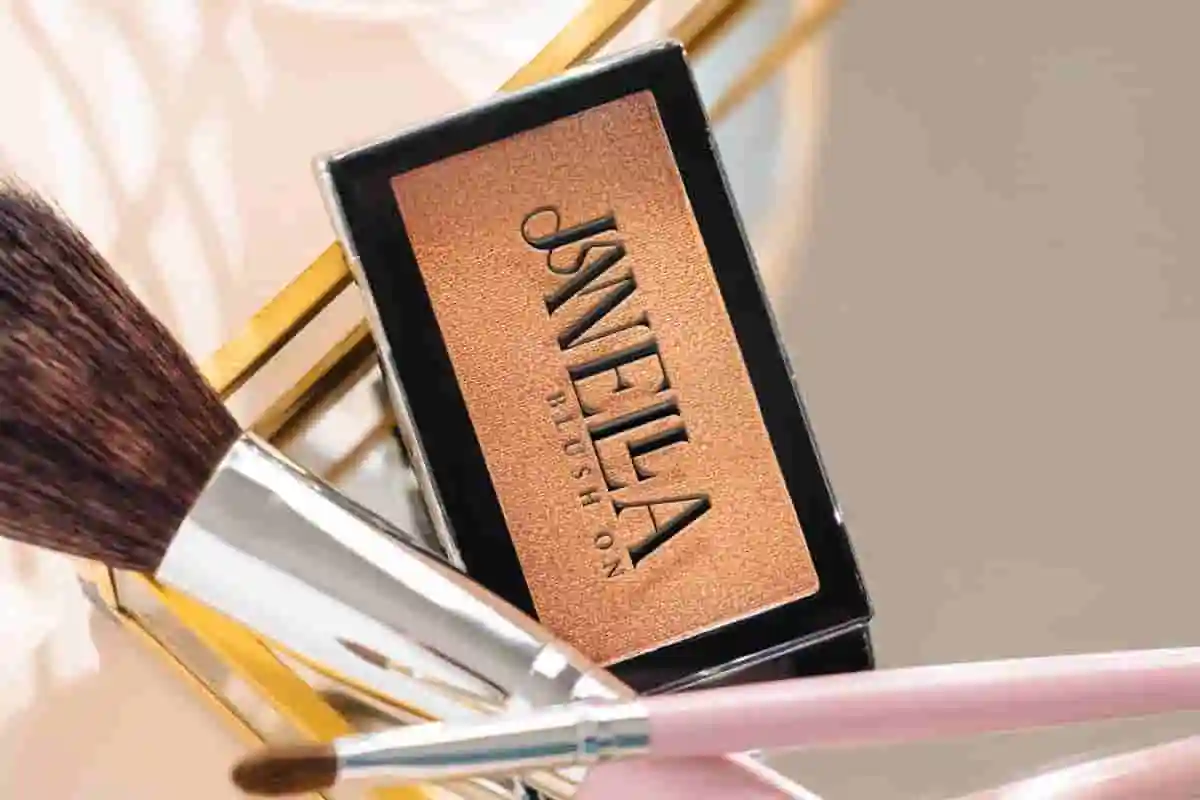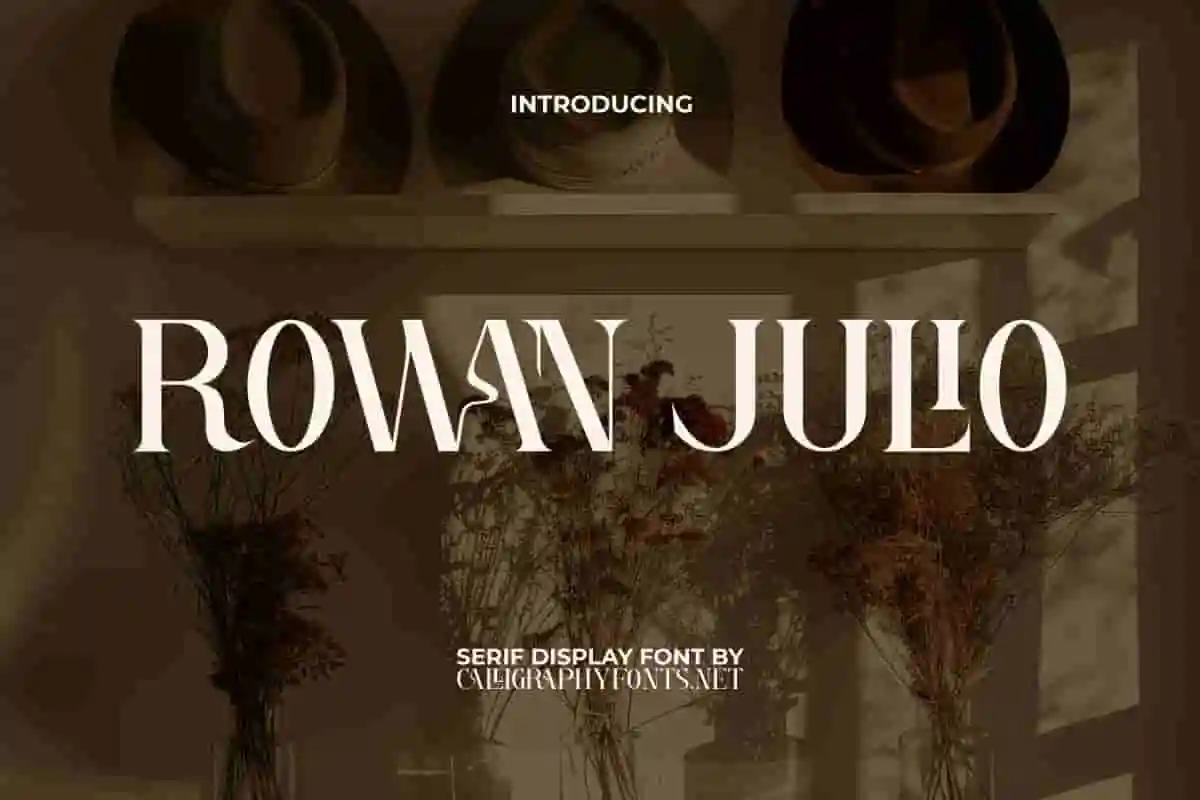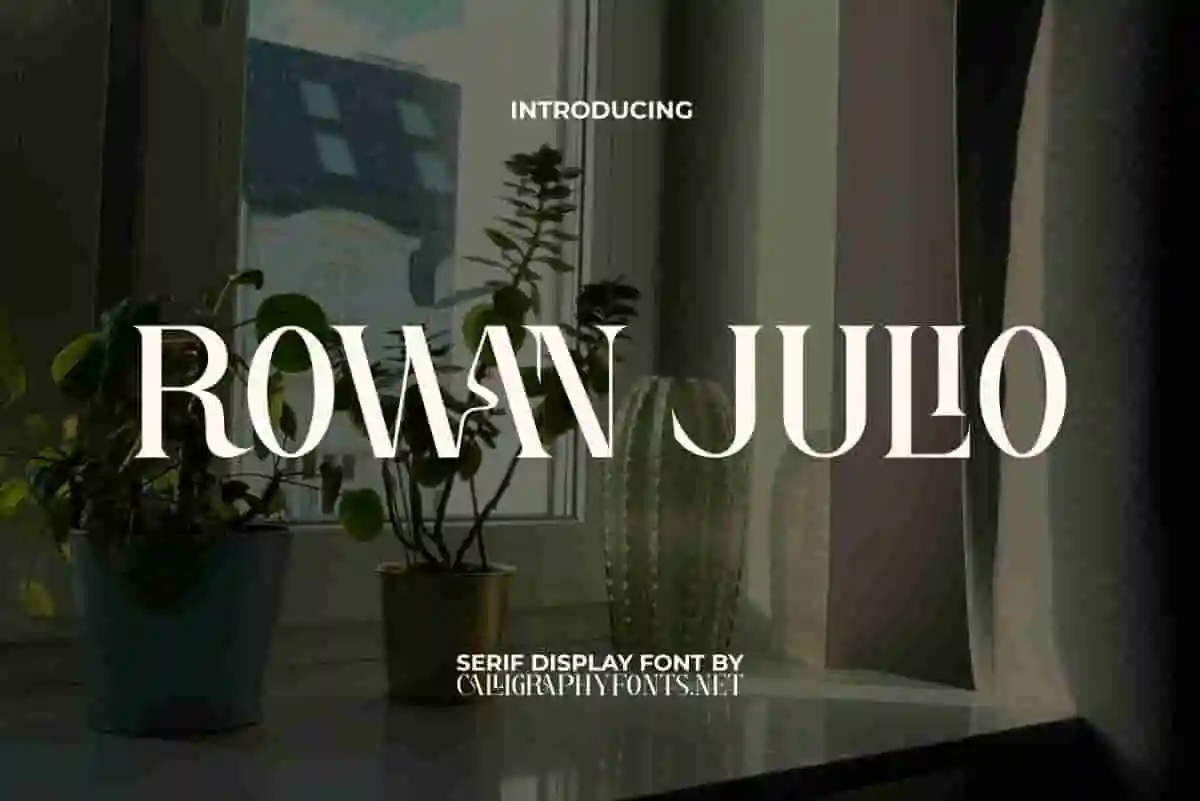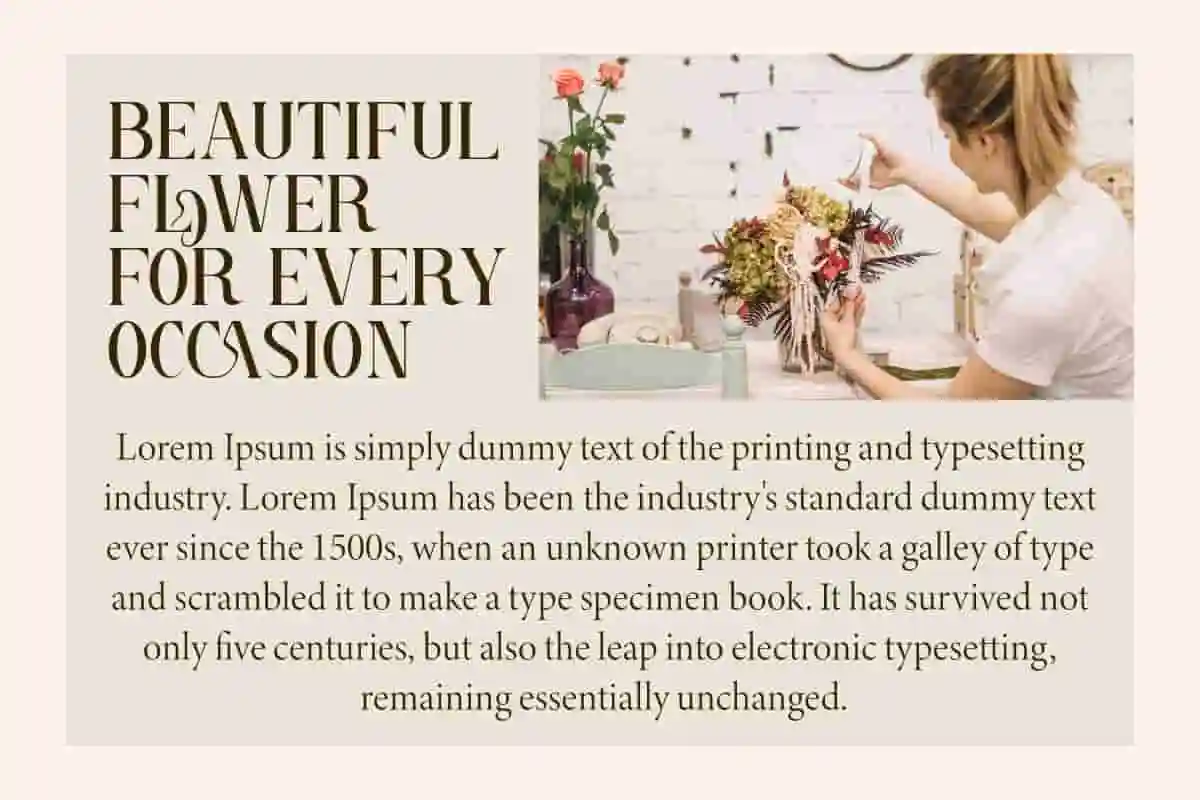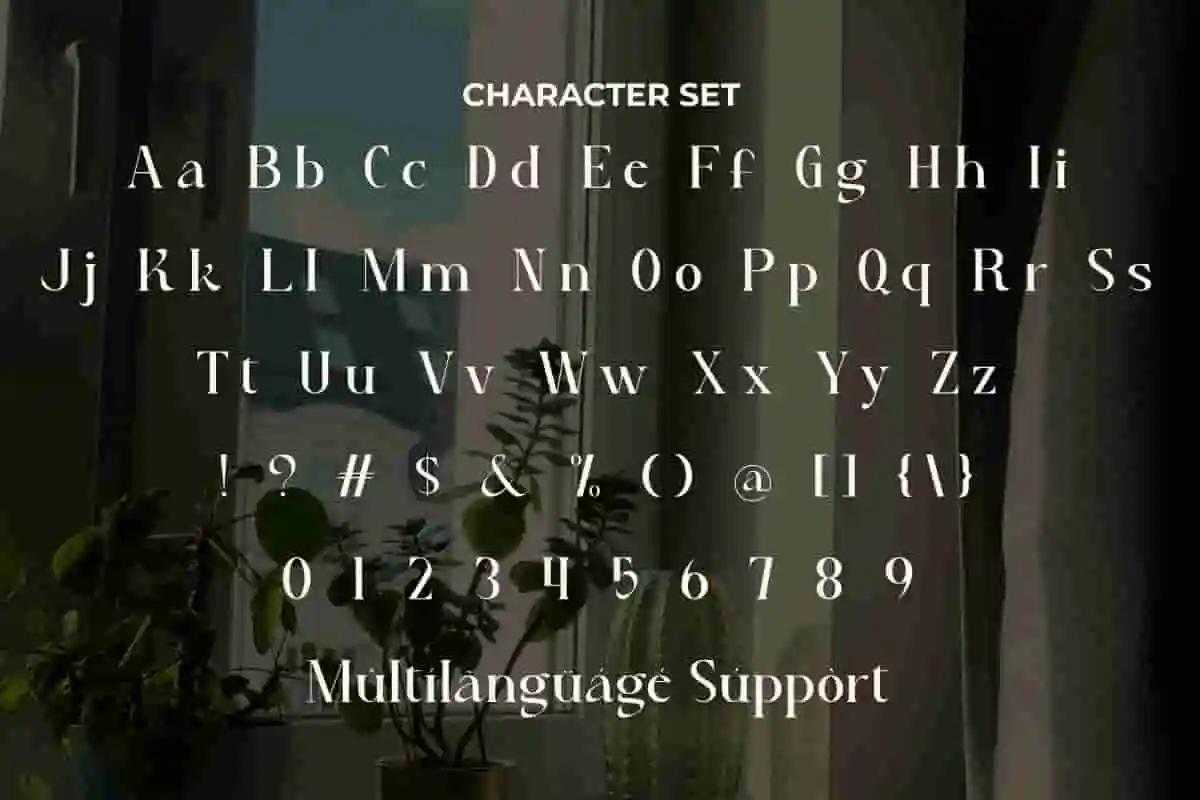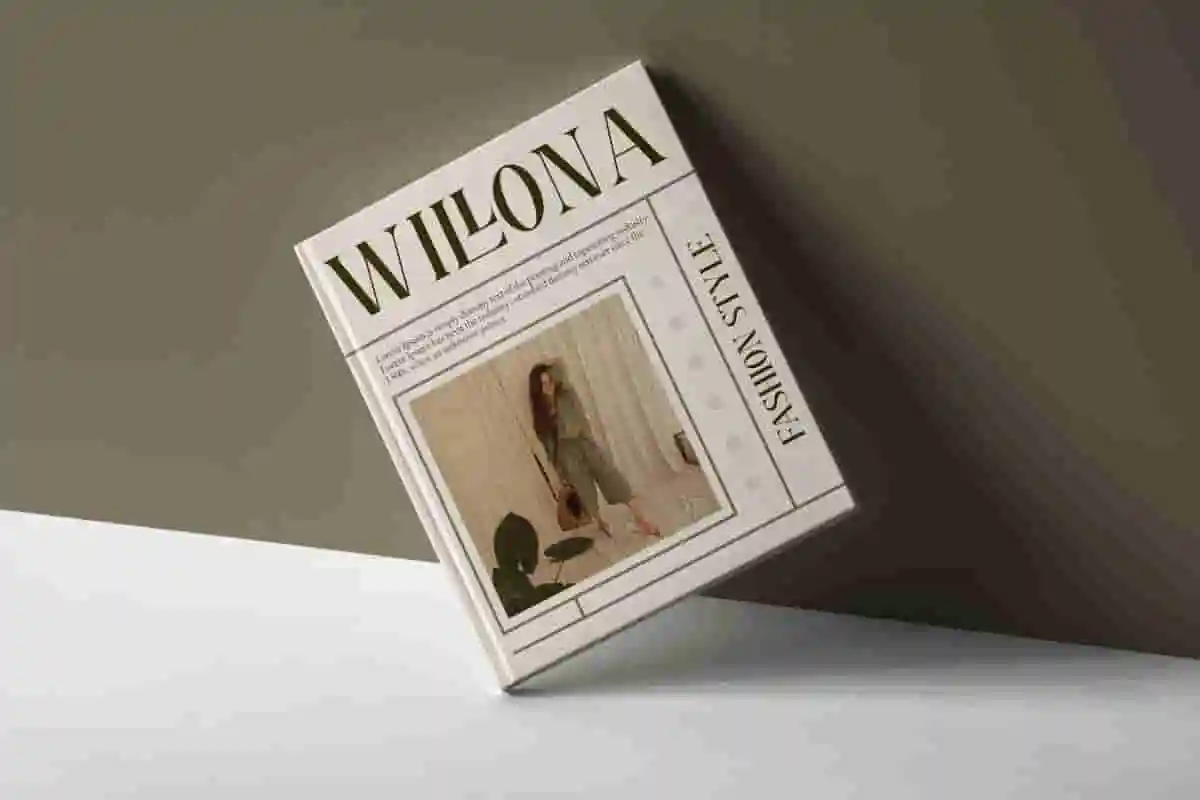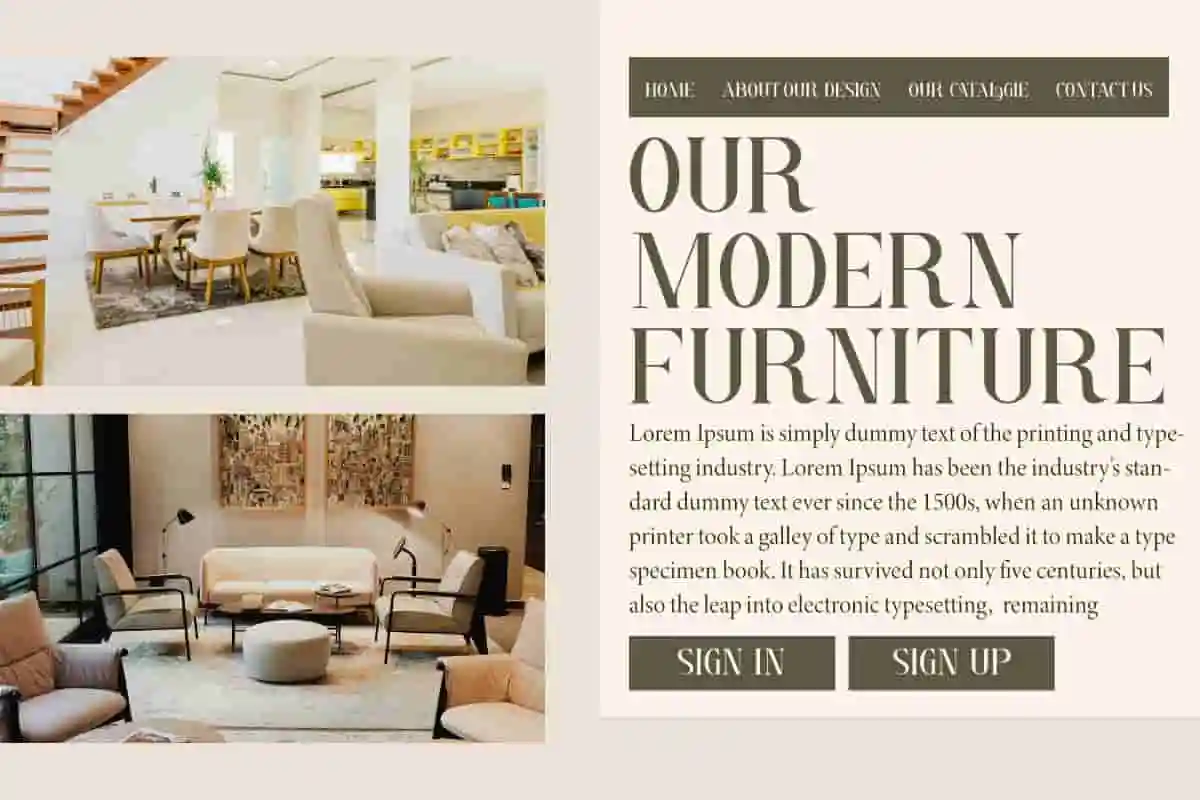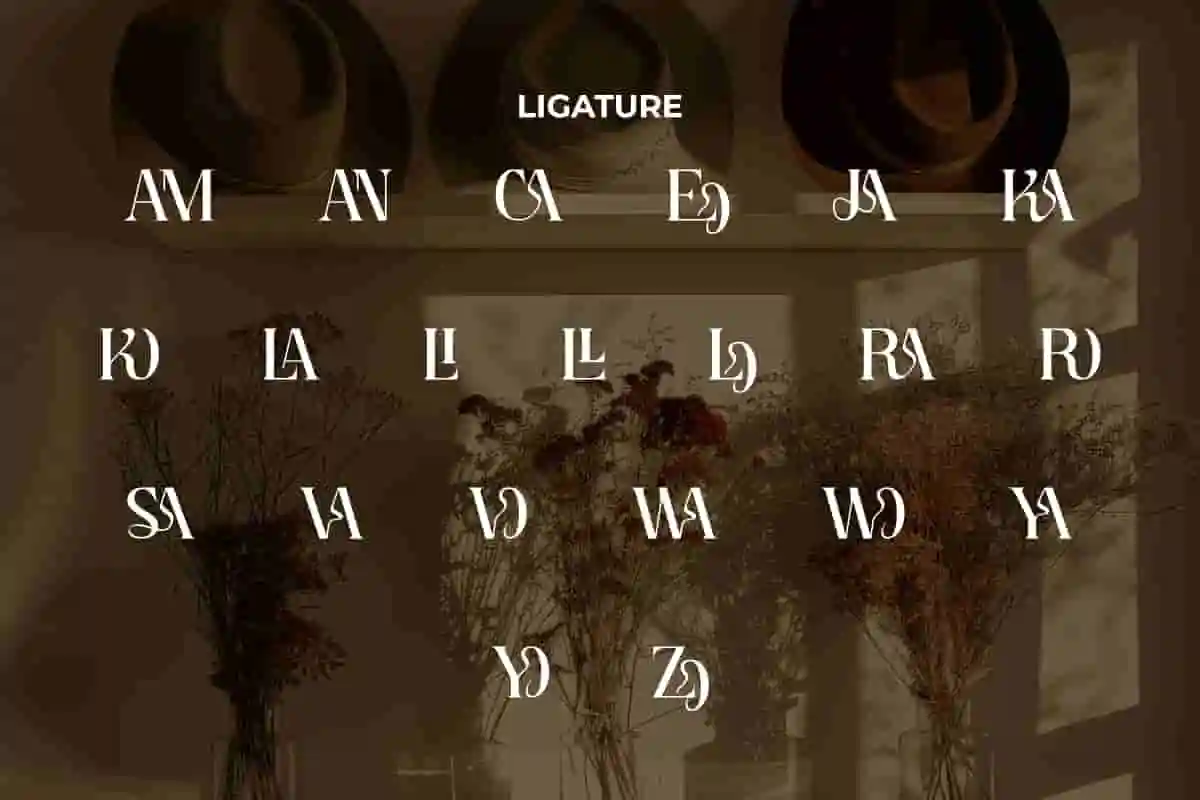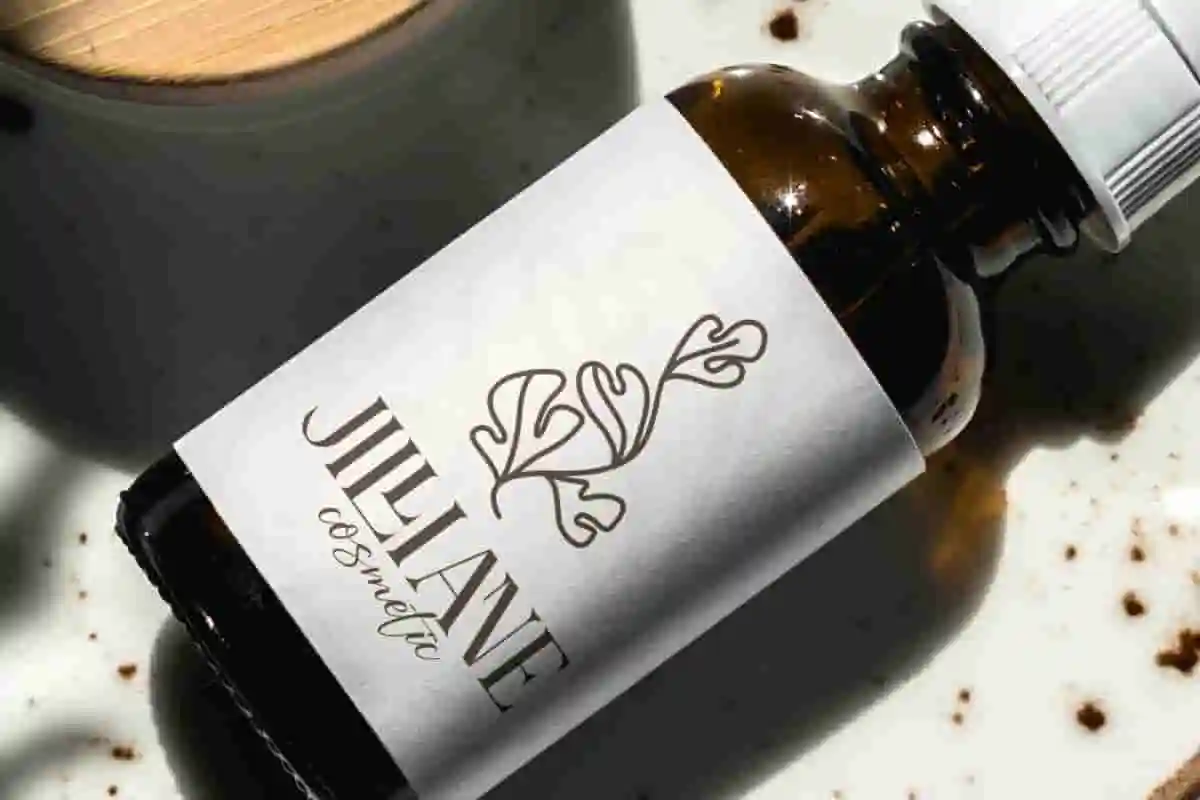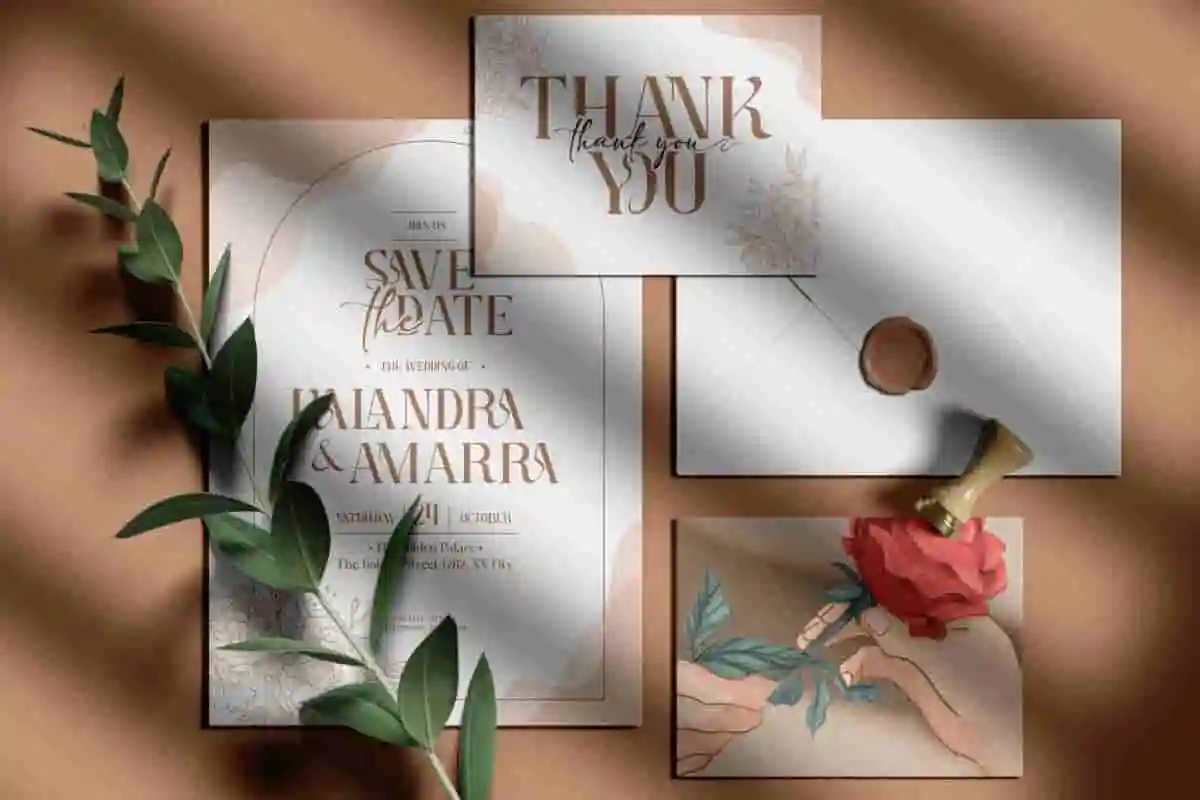
Rowan Julio Display Font
Rowan Julio Font is a beautiful sophisticated serif display font that will catch the eye and make any design stand out. This font is suitable for branding, cosmetics, magazines, and other projects.
Rowan Julio Font is a stylish serif display font created with luxury in mind, its graceful curves and sharp shapes provide a timeless appeal that enhances any design. This font is suitable for upscale projects such as blogs, card design, cover, greeting card, headers, invitations, label, logos, magazines, menu, mockup, poster, product packaging, stickers, template, titles, websites, and more.
Say hello to Rowan Julio Display Font — a bold, vintage-inspired typeface with a modern twist. Crafted for designers who want their work to stand out, Rowan Julio combines retro charm with clean lines to deliver a timeless, eye-catching look. Perfect for branding, logo design, packaging, editorial titles, and social media graphics, this font brings character and sophistication to every project.
Introducing Rowan Julio Display Font — a bold and expressive serif typeface that blends classic vintage vibes with modern design precision. This font was made to stand out, making it ideal for designers who want their work to feel confident, stylish, and timeless. Use Rowan Julio for logos, packaging, headlines, posters, apparel, or editorial layouts — anywhere you need a strong typographic presence with a refined aesthetic.
Introducing Rowan Julio Display Font, a bold and classy serif font crafted to bring timeless elegance to your design projects. Inspired by retro typography but refined with a modern touch, Rowan Julio is the perfect blend of tradition and trend. Meet Rowan Julio Display Font — a bold serif typeface designed to capture attention and leave a lasting impression.
• Full uppercase
• Ideal for logos
Rowan Julio Font is a perfect serif display font with special ligatures that give it an authentic look, it will look very minimalist and can attract attention. With a versatile style, you can use this font for any purpose, such as advertising, bouquet, cosmetic, fashion, florist, graphic designs, home furniture, interior design, makeup artist, photography, printing, skincare, wedding, writers, etc.
Rowan Julio Font comes with a complete set of Uppercase and Lowercase Basic Characters, Numbers,  Punctuation, Symbol, and Ligature. It is supported with multilingual characters and ready to use both on Windows machine or Mac with simple installations. It’s tested to work well in the Adobe Apps (Illustrator, Adobe InDesign, Adobe Photoshop) CorelDraw, and others. PUA Encode Characters means you can access all the characters easily – Fully accessible without additional design software.